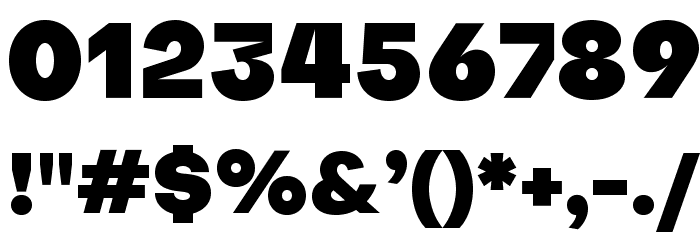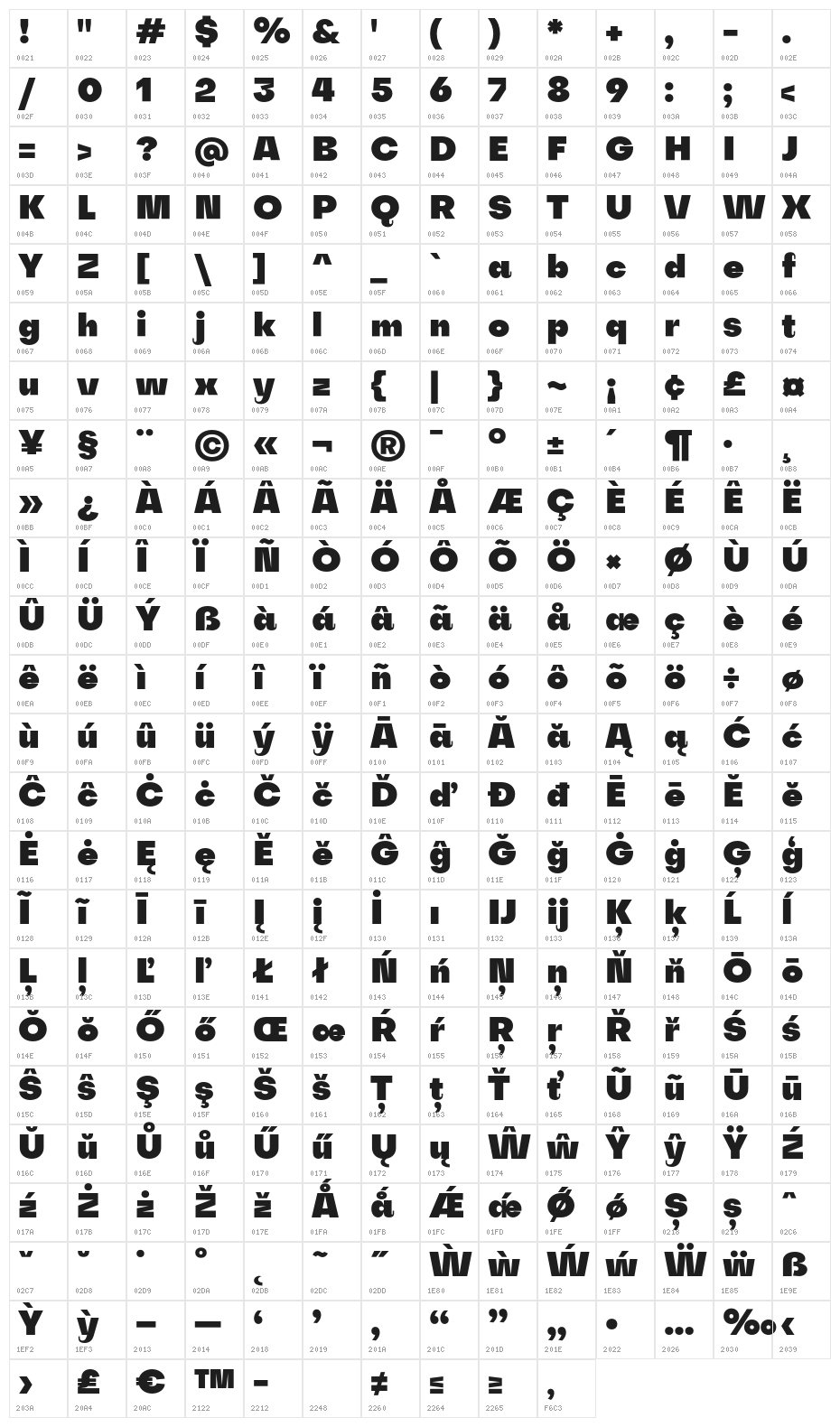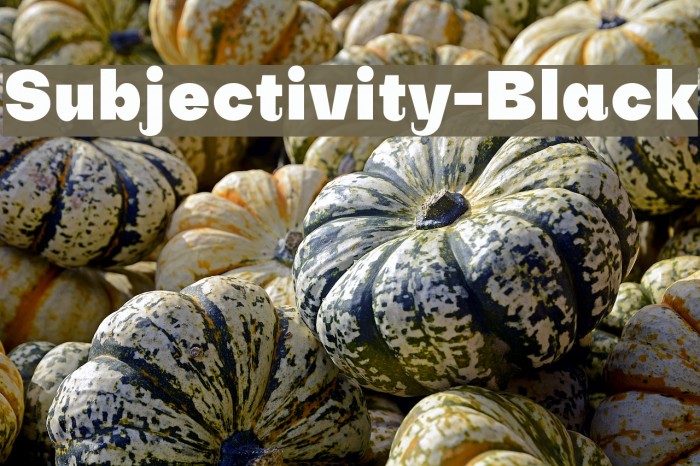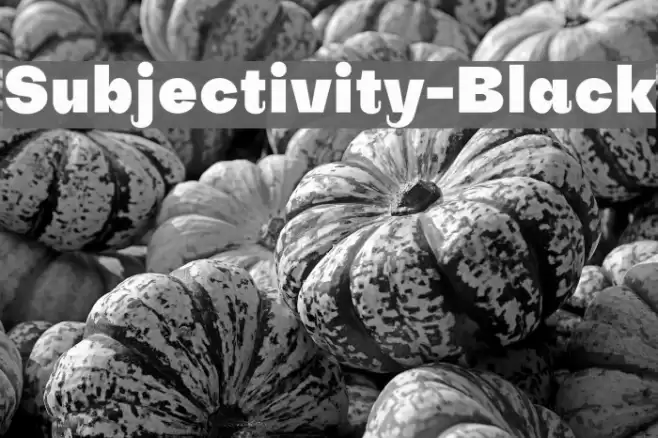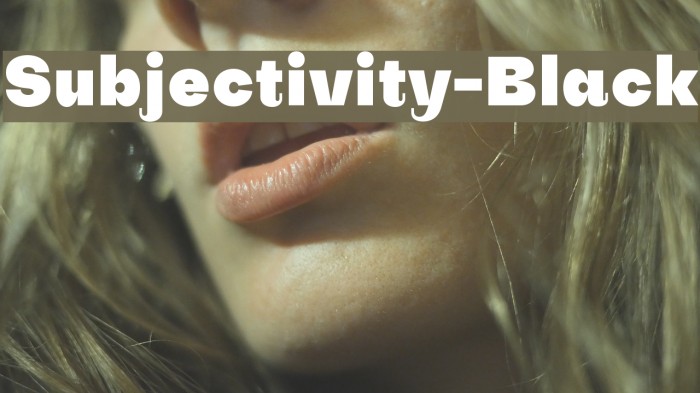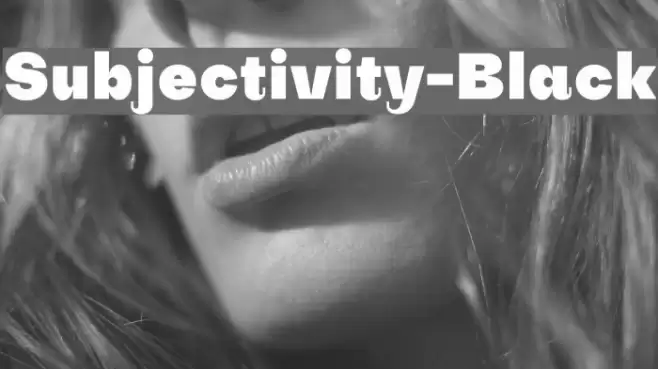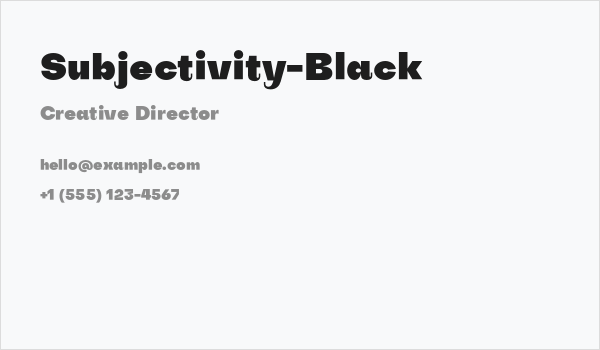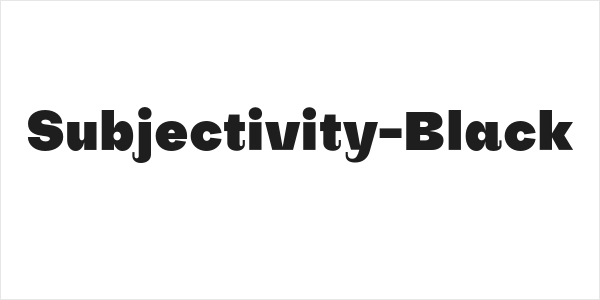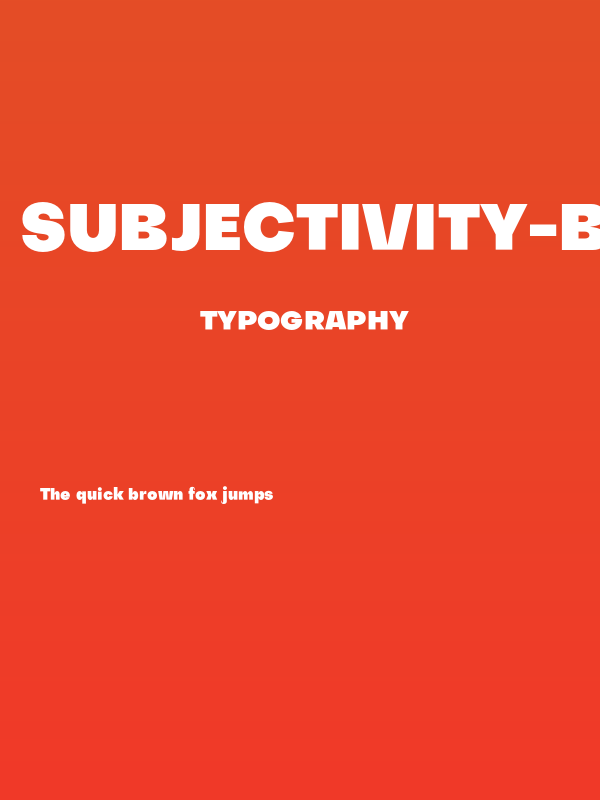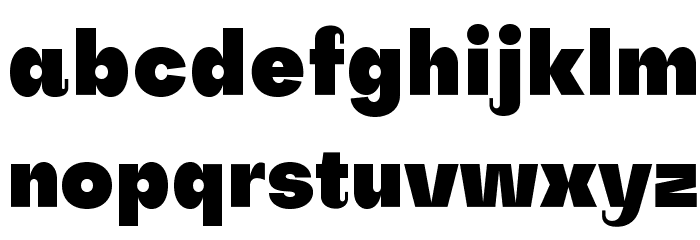
Subjectivity-Black Font
This font is characterized by its bold and impactful presence, featuring thick, uniform strokes that convey strength and confidence. The uppercase and lowercase letters maintain a consistent weight, providing a cohesive and powerful visual impact. The numerals are equally bold, ensuring they stand out prominently. The special characters are designed to match the overall boldness, making them suitable for attention-grabbing designs. The font's strong geometric shapes and clear lines make it ideal for modern and assertive design projects.
Proposed ProjectsIdeal for headlines, posters, branding, and advertising where a strong visual impact is required.